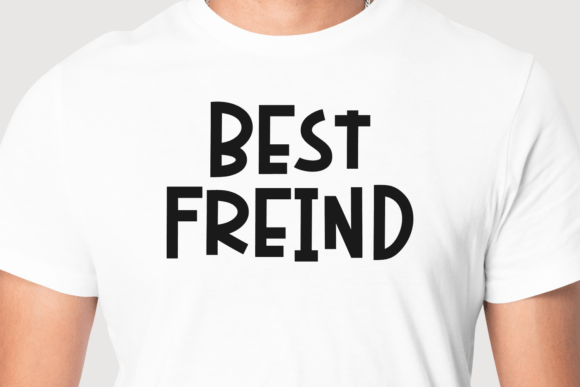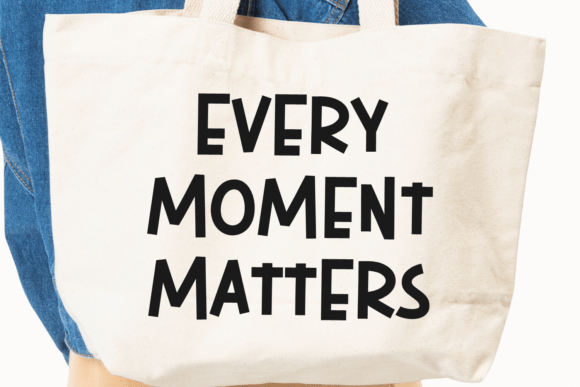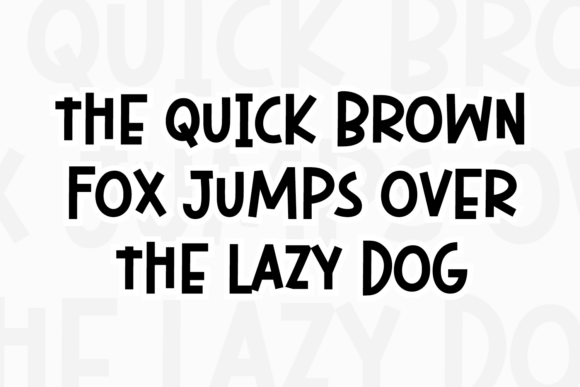
The Ultimate Party Starter: Fun Party Font
I’ll never forget the time I was working on a party invitation design for a client’s milestone birthday bash. I had the concept, the colors, and the graphics, but something was missing – the perfect font. I scrolled through my font library, but nothing seemed to capture the playful, festive vibe I was going for. That’s when I stumbled upon the “Fun Party” font, and it was love at first sight! ✨
• ✨ The “Fun Party” font is a total showstopper with its playful, energetic vibe that’s perfect for social media visuals, party invitations, and more.
• ✅ It’s incredibly versatile, with all-cap glyphs, numbers, and basic punctuation that make it easy to use in various design projects.
• 🎉 The font’s creative scope is vast, making it suitable for branding elements, home decor crafts, and even DIY projects.
• 💻 It’s easy to use and pairs well with a variety of other fonts, giving you endless possibilities for creative combinations.
While the “Fun Party” font is amazing, there are a few things to keep in mind: 🤔
• ⚠️ It might not be the best choice for body text or lengthy content, as its playful nature can be overwhelming in large blocks of text.
• ⚠️ Some users might find the font’s eccentricities challenging to work with, especially if they’re not familiar with OpenType features or glyphs.
The Designer Inspiration Behind Fun Party Font
The “Fun Party” font was inspired by the designer’s love of 80s and 90s party culture, with its bright colors, eclectic patterns, and playful typography. The designer wanted to create a font that would capture the essence of a fun, lively party and bring it to life in digital designs.
What makes the Fun Party font unique? The Fun Party font stands out with its playful, energetic vibe and versatile design, making it perfect for a wide range of creative projects.
Is the Fun Party font easy to read? The Fun Party font is designed to be visually striking, but it may not be the most readable font for body text or lengthy content. It’s best used for headlines, titles, or short phrases.